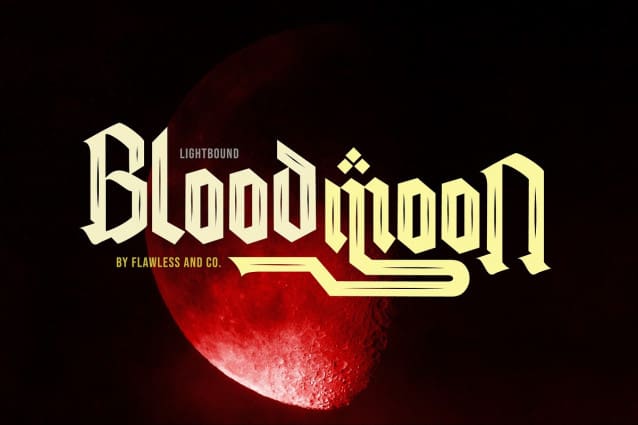
Lightbound Blackletter Font
Introducing “Lightbound Blackletter” – an exquisite blackletter Kufic typeface that fuses ancient calligraphic traditions with a contemporary twist. Inspired by the elegance and geometric precision of Kufic script, Lightbond brings a sense of mystique and cultural richness to your designs. This font is suitable for branding, business, logos, magazines, and others.